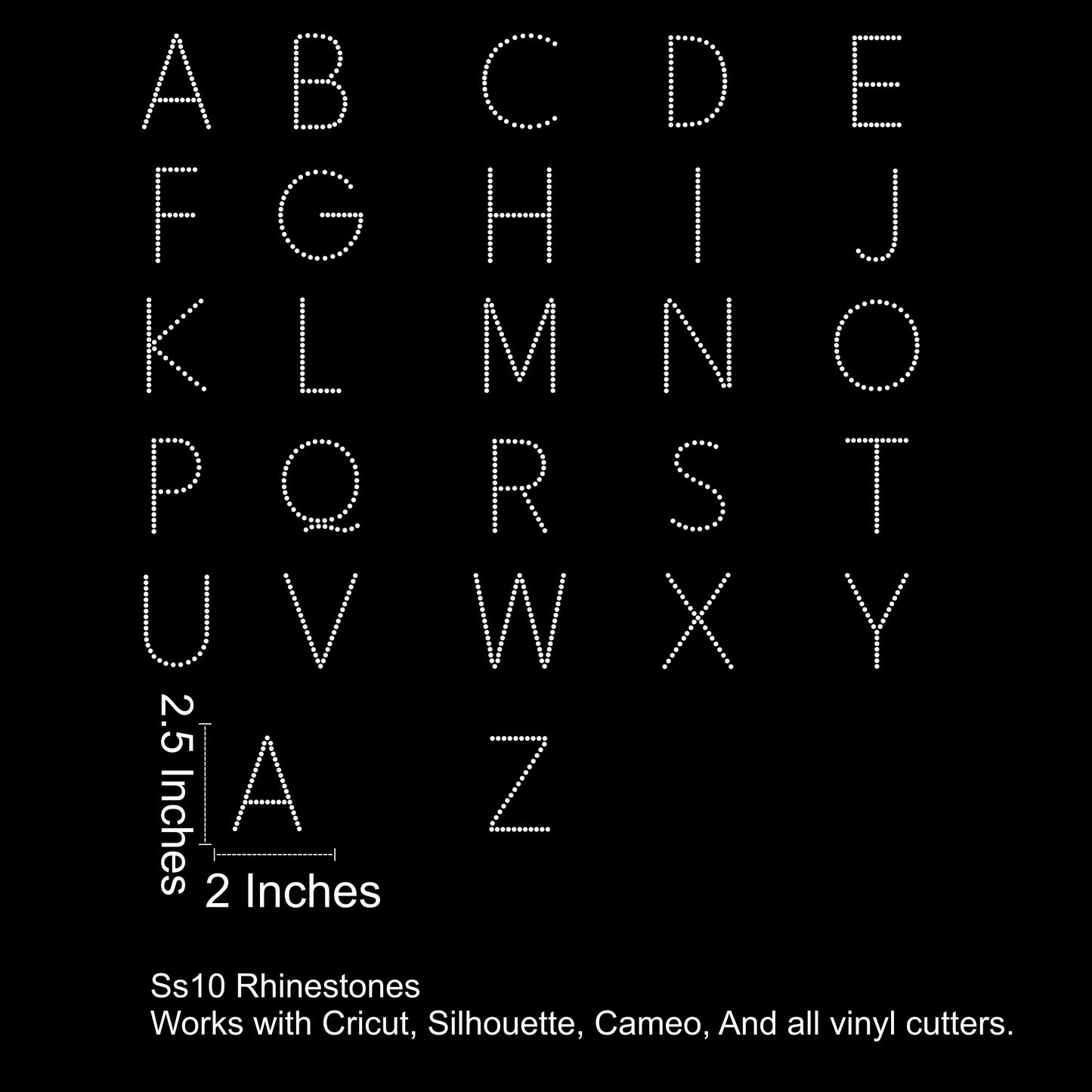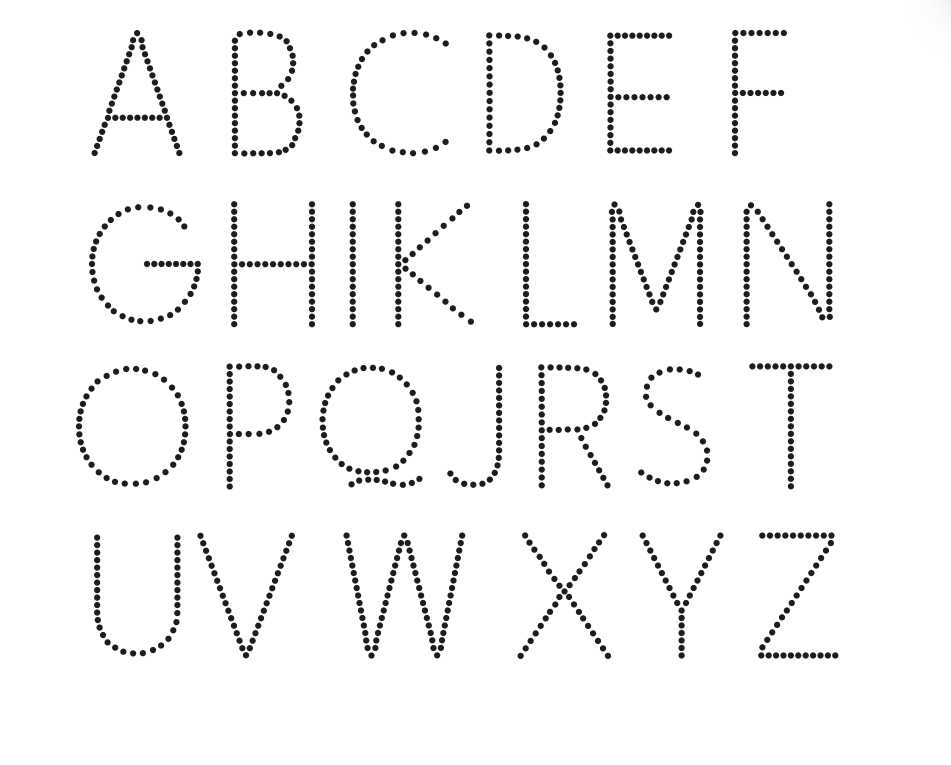
Base Line Font Rhinestone SVG File (2.5 Inches Tall)
Base Line Rhinestone Font — designed with simplicity and versatility in mind. This all-caps block-style font is perfectly sized for SS10 rhinestones and works with any vinyl cutting software.
Font Details:
• Capital letters only (A–Z)
• Each letter approx. 2.5 inches tall
• Clean, straight lines for easy cutting and pressing
Whether you’re crafting for your brand, business, or a custom shirt drop, Base Line gives you that solid, no-fuss lettering that just works.